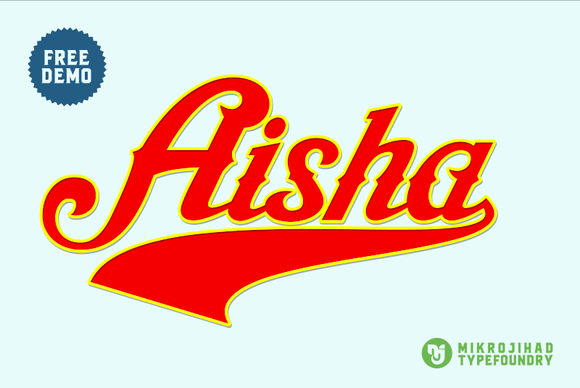
Journey into the realm of elegance and sophistication with Aisha, the exquisitely crafted script font that exudes timeless charm and Victorian allure. With its interwoven strokes and delicate flourishes, Aisha captivates the eye, leaving an enduring impression on every design it graces.
Indulge your creative spirit and embrace the versatility of Aisha. Whether you seek to craft captivating headings that command attention, design logos that radiate timeless elegance, or create invitations that exude an air of exclusivity, Aisha is your trusted companion. Its multifaceted nature lends itself seamlessly to a myriad of projects, including t-shirt designs that speak to your individuality, greeting cards that convey heartfelt sentiments, and posters that ignite the imagination.
Unleash your inner artist and let Aisha guide you as you craft labels that elevate your products, book covers that intrigue and captivate, and brochures that leave a lasting impact. With Aisha as your font of choice, your designs transcend the ordinary, becoming masterpieces that resonate with your audience.
Let your imagination soar as you delve into the world of tattoos. Aisha's intricate lines and graceful curves lend themselves perfectly to the art of body adornment. Create custom tattoo designs that tell your story, express your individuality, and leave an indelible mark on your skin. Aisha is the perfect font for those seeking a permanent expression of their creativity and passion.
Aisha is more than just a font; it's an artistic journey waiting to be embarked upon. With its enchanting style and endless possibilities, Aisha invites you to explore the depths of your imagination and create designs that leave an enduring legacy. Embrace the timeless beauty of Aisha and let your creativity flourish.